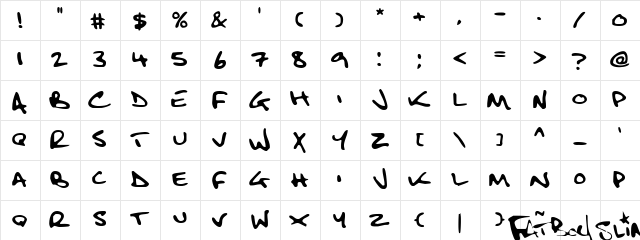
Fatboy Slim BLTC 2 (BRK) Regular
Design Context for Fatboy Slim BLTC 2 (BRK) Typeface
Fatboy Slim BLTC 2 (BRK) is a composed and adaptable typeface that performs quietly and consistently across a wide range of design contexts.